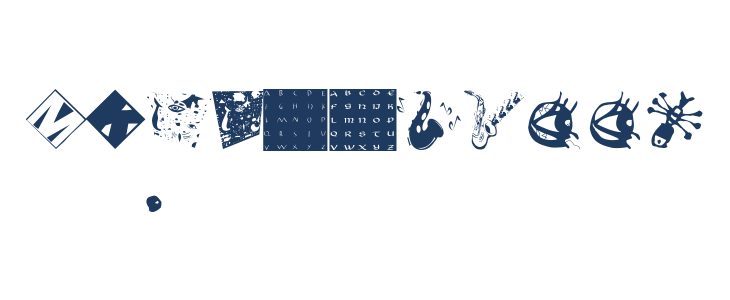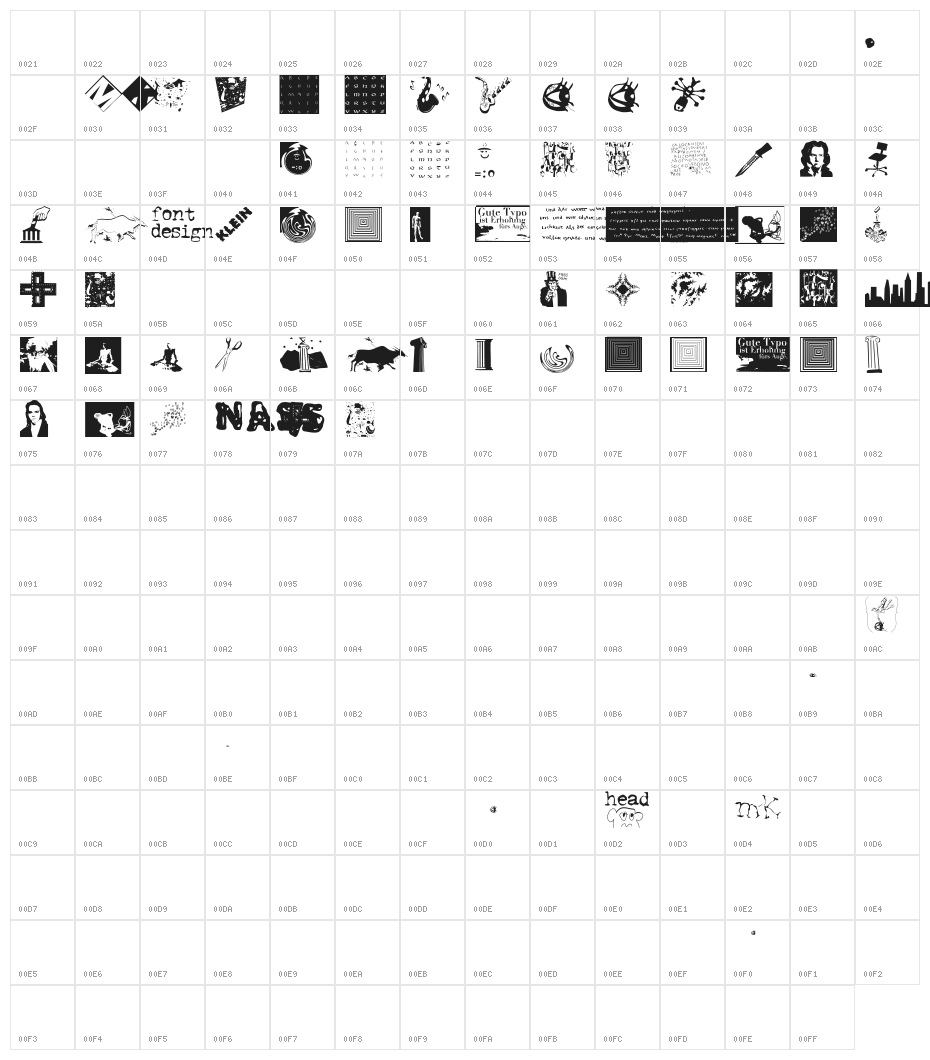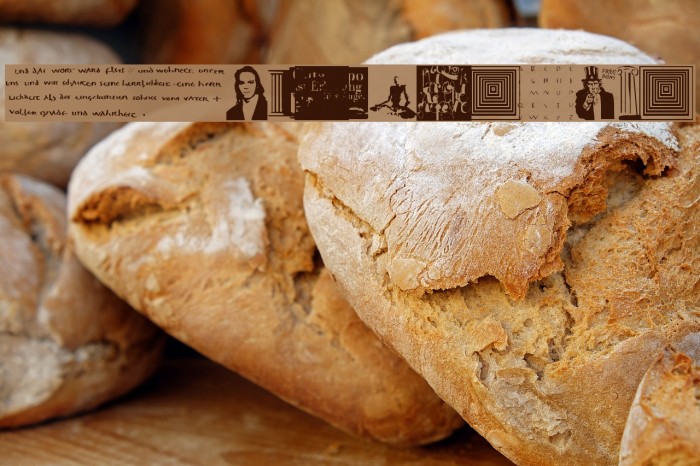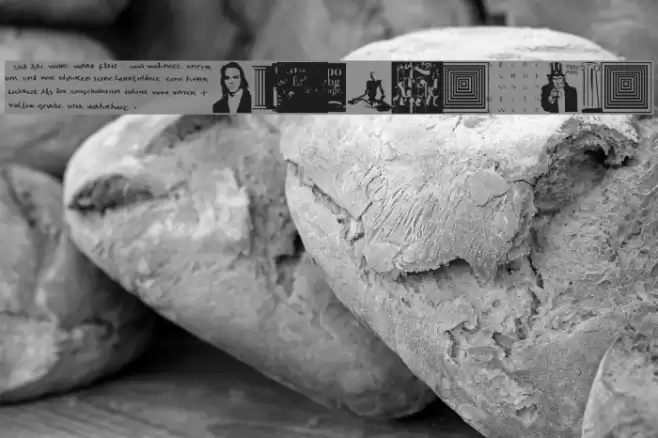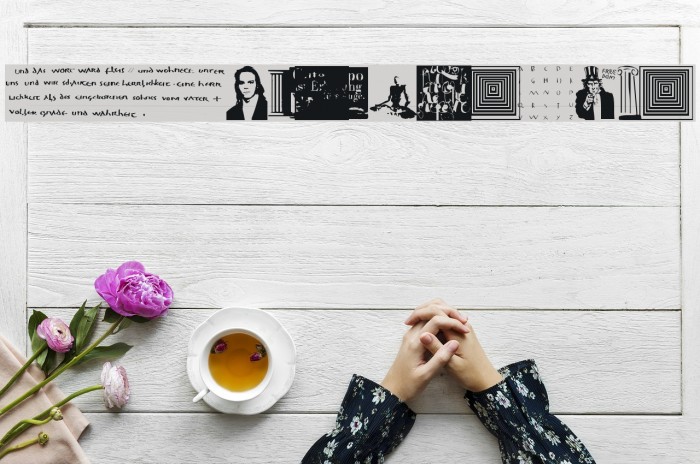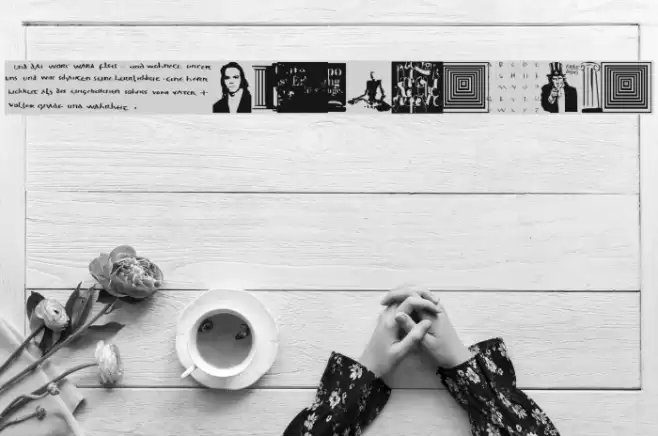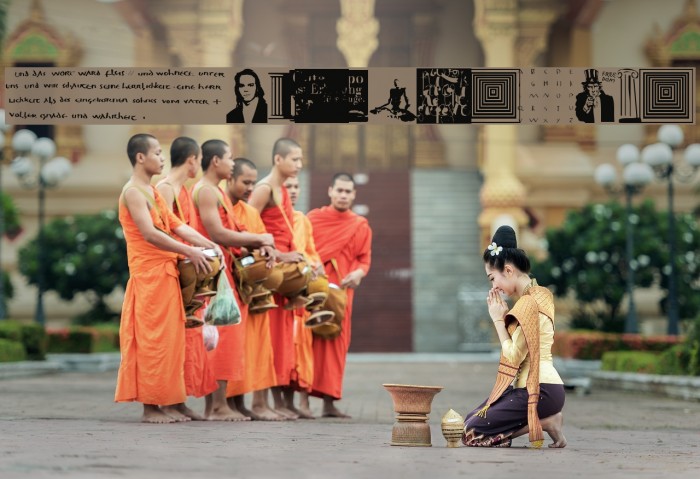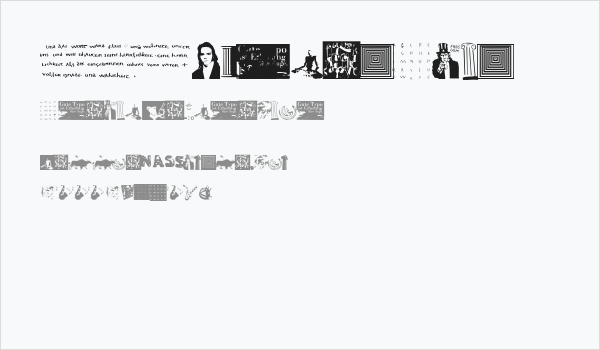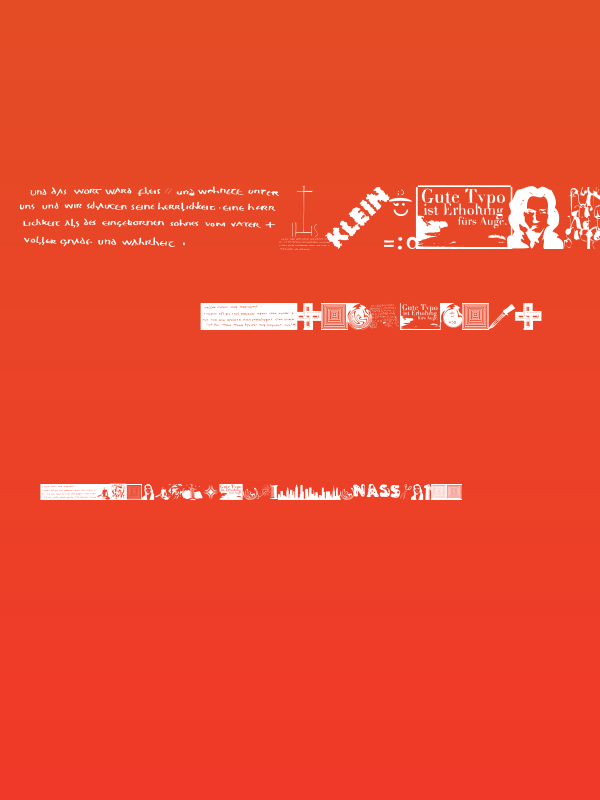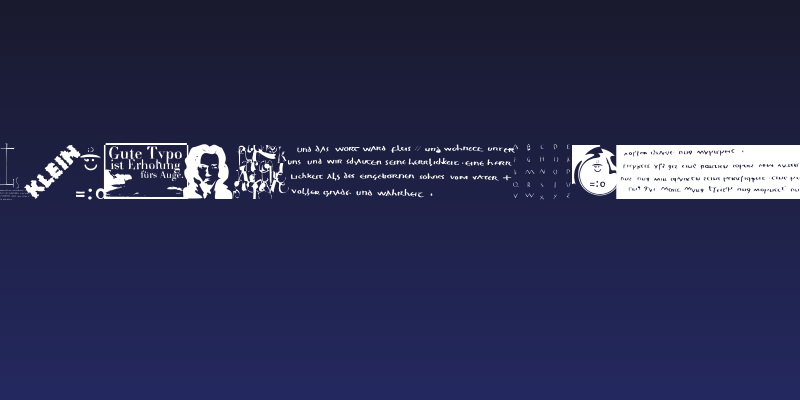
SundriesBats Font
SundriesBats Description
A highly decorative and eclectic dingbat font featuring a mix of pictograms, abstract shapes, cityscapes, text snippets, and artistic illustrations. The characters are not standard letterforms but rather a collection of visual elements and graphic motifs, each occupying a glyph slot.
| Overall Style | Decorative, Eclectic, Artistic |
| Use Case | Logos, Posters, Art projects, Visual accents |
| Proposed Projects | Poster art, album covers, zines, collage projects, experimental graphic design, visual storytelling, and creative branding. |